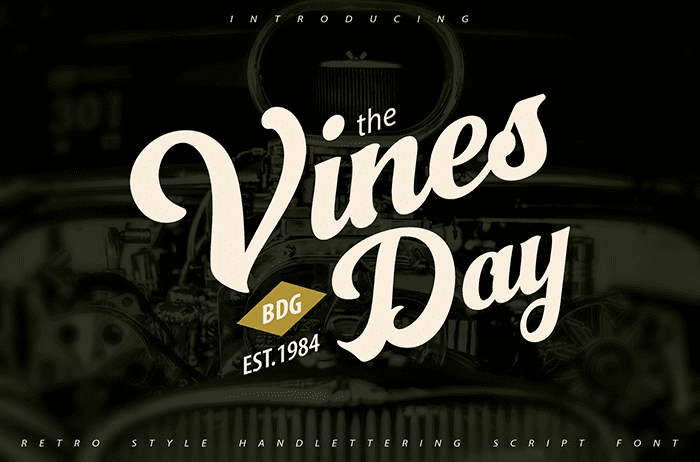
Vinesday Script Font. This gorgeous script will look beautiful on invitations, greeting cards, branding materials, business cards, quotes, posters, and more. Thanks to Vunira Studio for sharing this font! Take a look at this portfolio for more of his stunning fonts.